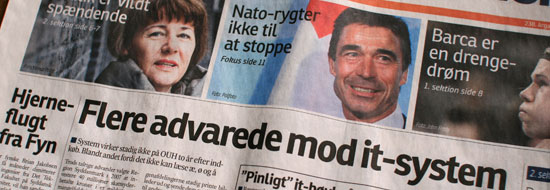
Fyens Stiftstidende
DateMarch 2009 Font | The design firm Palmer Watson Ltd., with which we have collaborated in the past, and their client, the Danish newspaper Fyens Stiftstidende, selected Ronnia for the launch of a major new tabloid section that covers the city of Odense and the Fyn region. A whole typographic overhaul of the full newspaper was also part of the project. Ronnia was customised for the client's particular needs and is used in various weights mainly in titles, some text and tables. | |